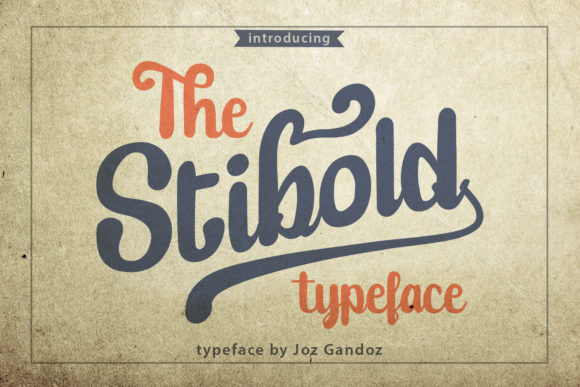
Introducing Stibold, the captivating script font that will transform your projects into breathtaking pieces of art. This exquisite typeface whispers a tale of authenticity and craftsmanship, adding an alluring touch that will leave an unforgettable impression.
With its unique and captivating style, Stibold's intricate strokes will elevate your designs to new heights. Unleash your creativity and envision your logos, branding, and typography quotes adorned with this mesmerizing font. Stibold is the perfect complement to magazine or book covers, website headers, and clothing lines, infusing them with a touch of timeless elegance.
Step into a world of endless possibilities with Stibold, where your imagination knows no bounds. Its versatile nature adapts seamlessly to any project, becoming an indispensable tool in your creative arsenal. Allow this masterpiece to weave its magic into your designs, captivating your audience and leaving them spellbound by your creations.